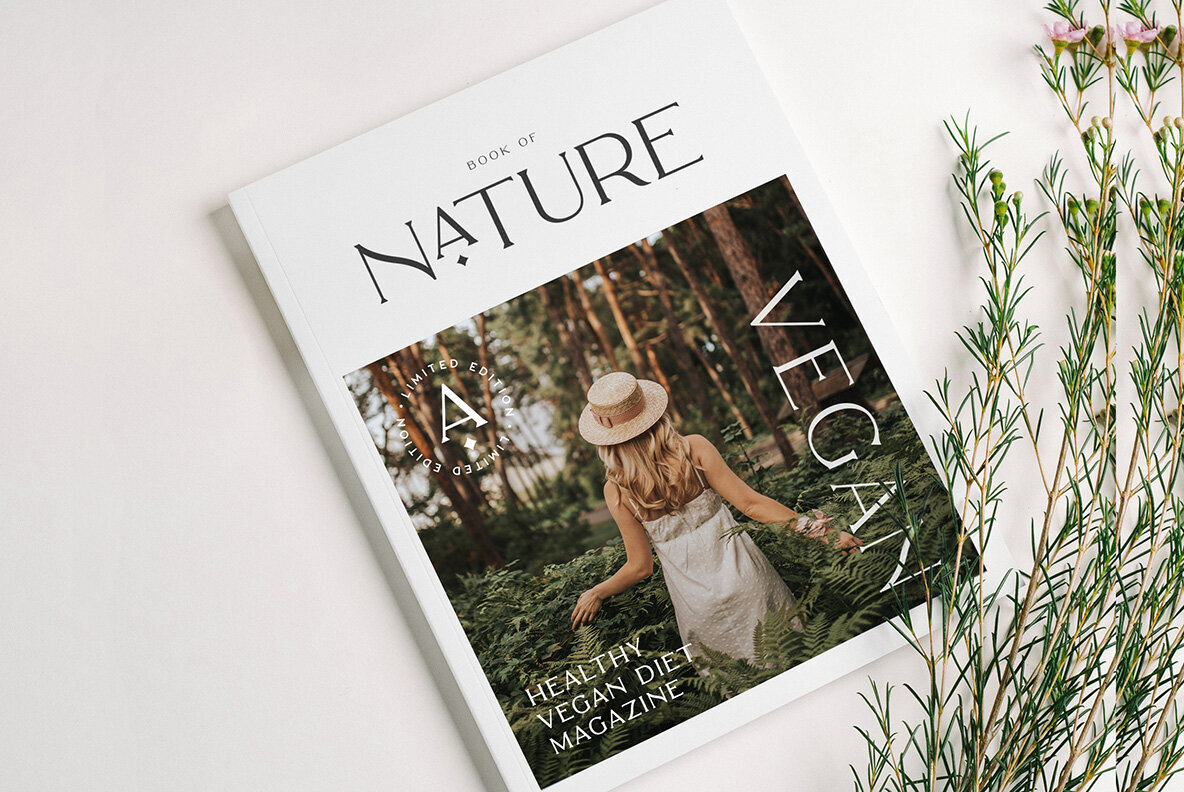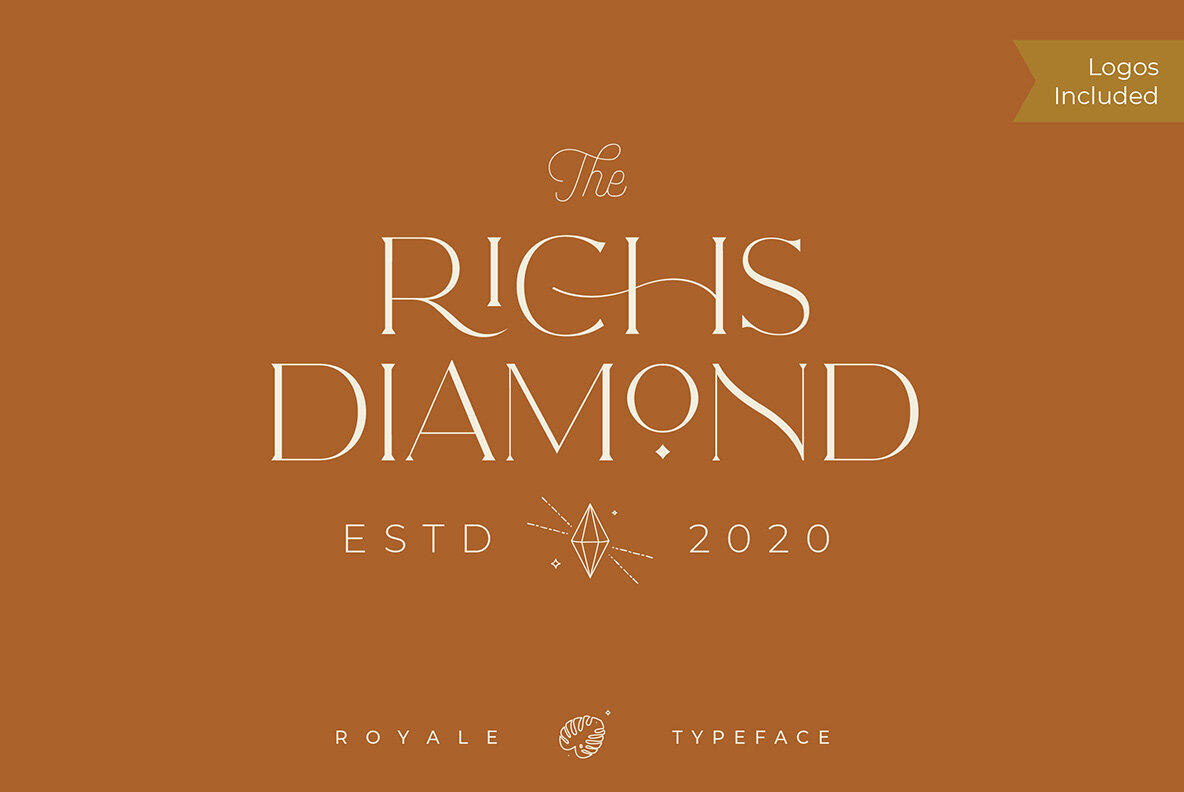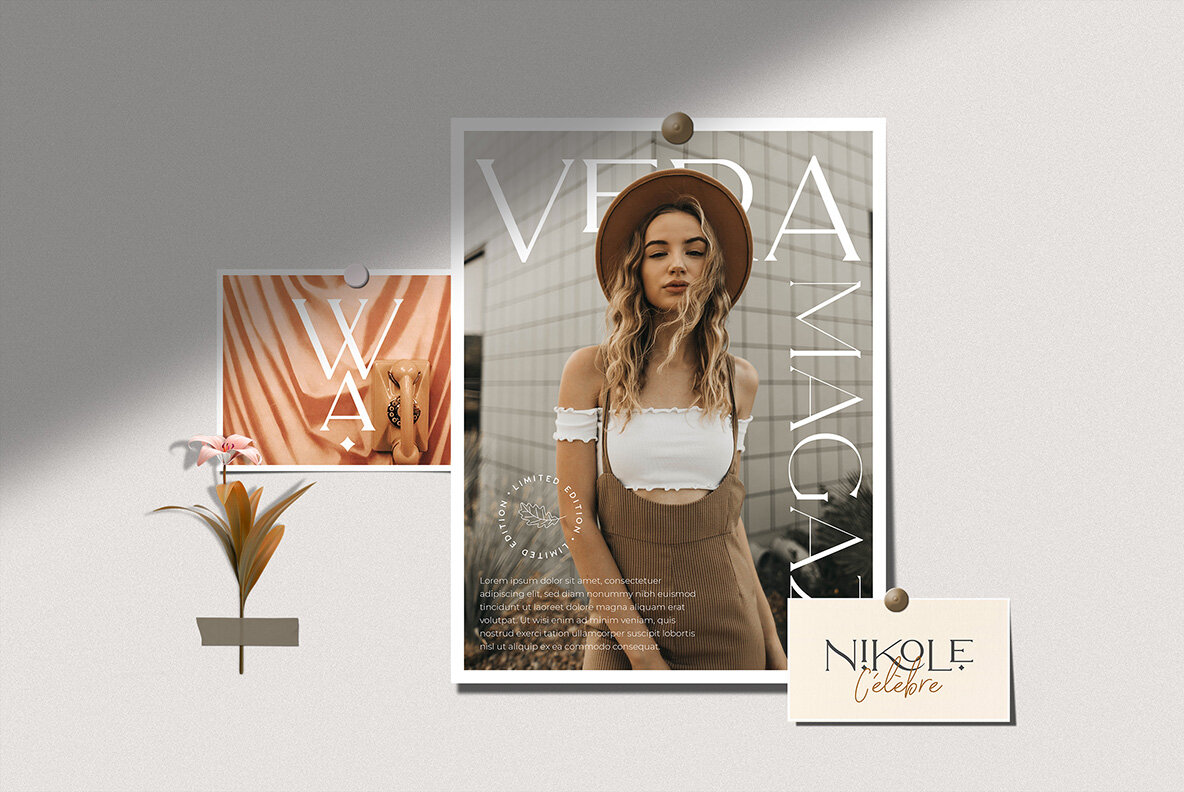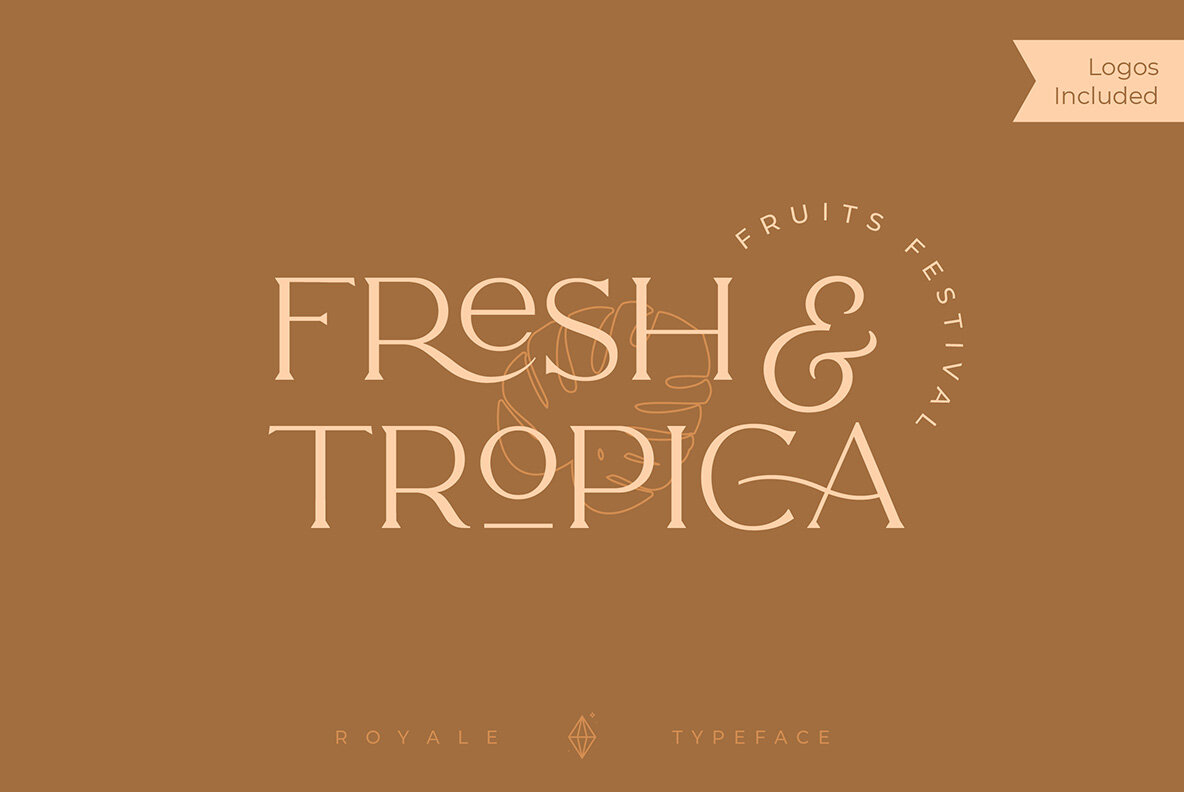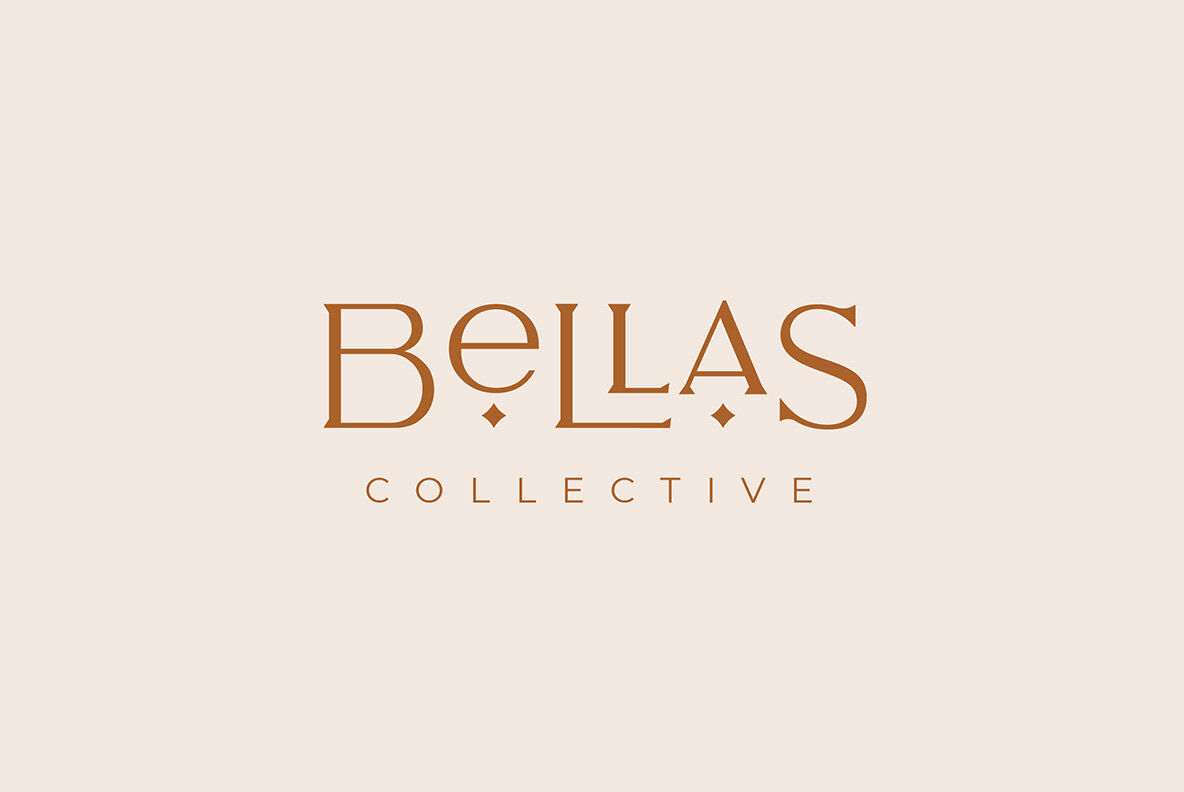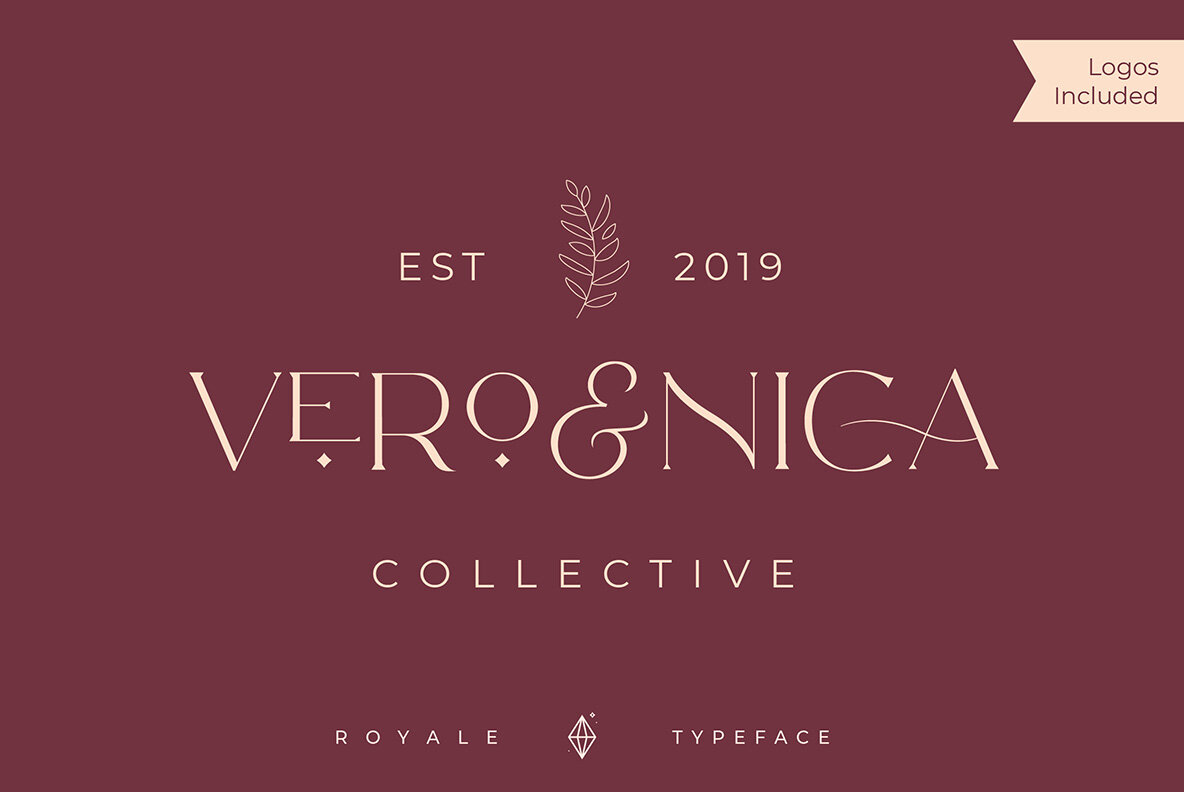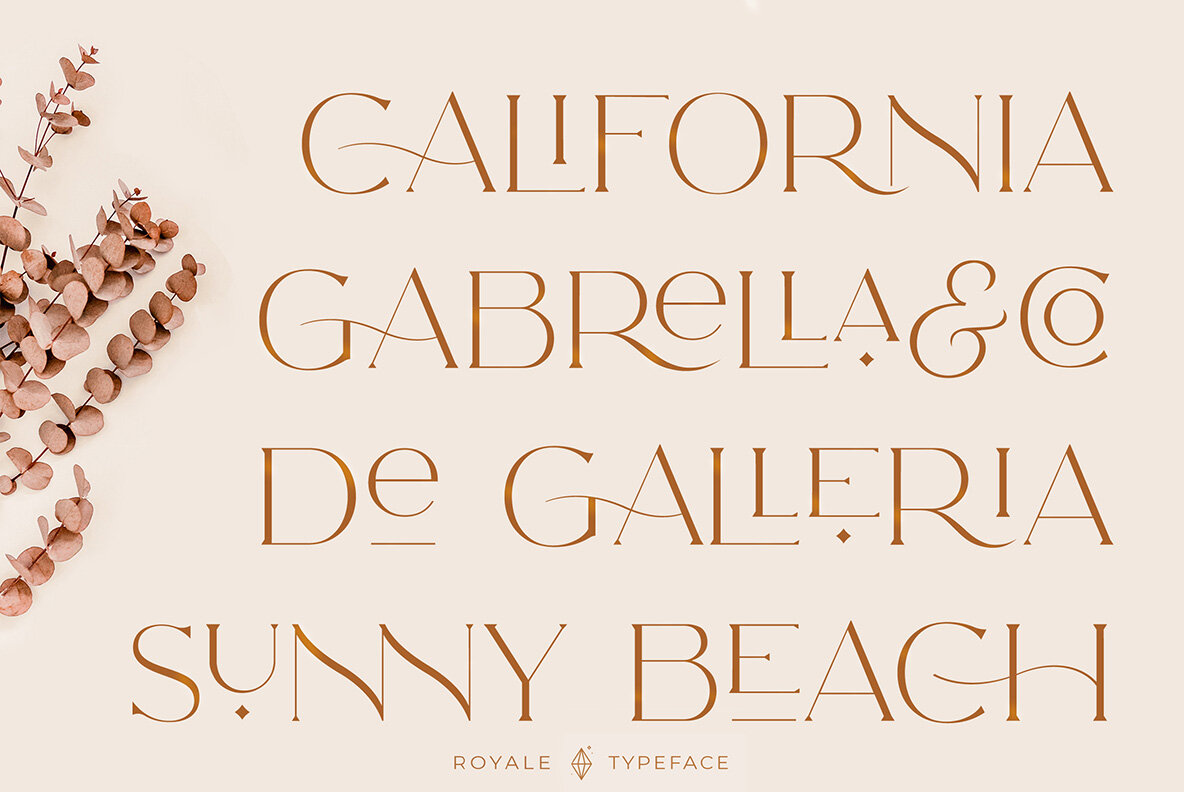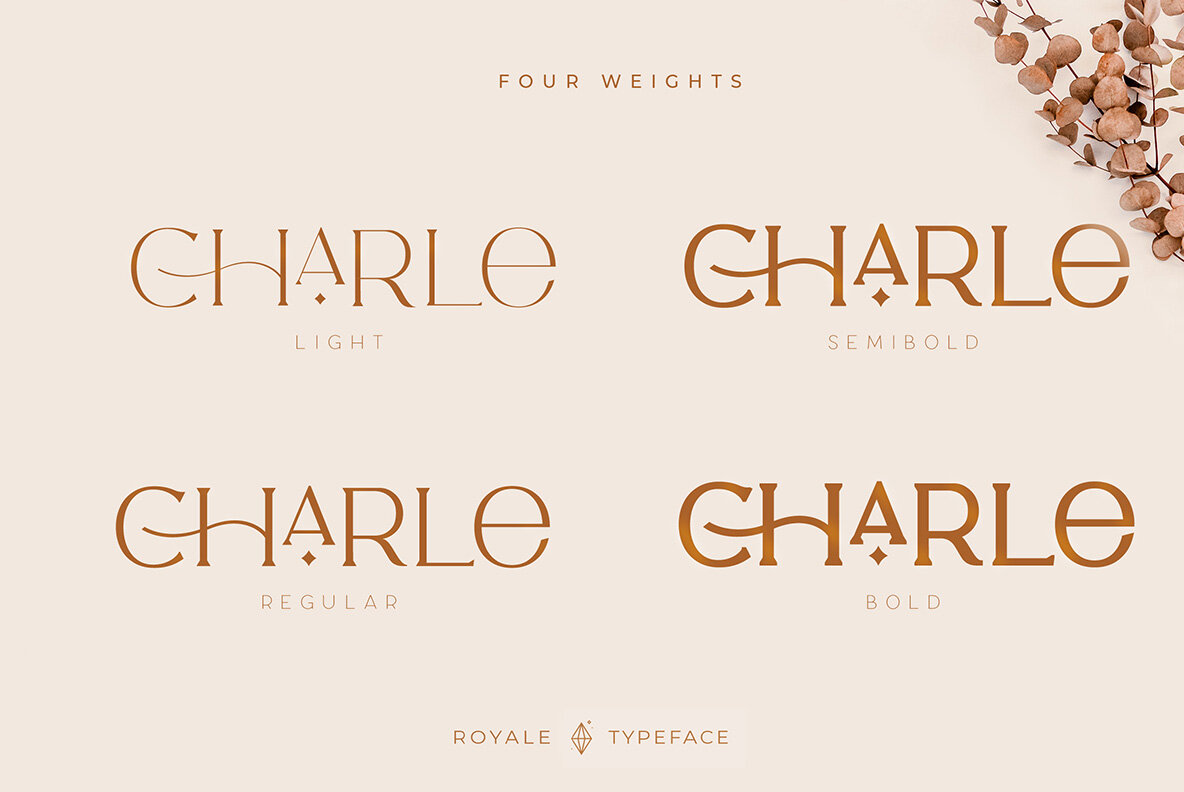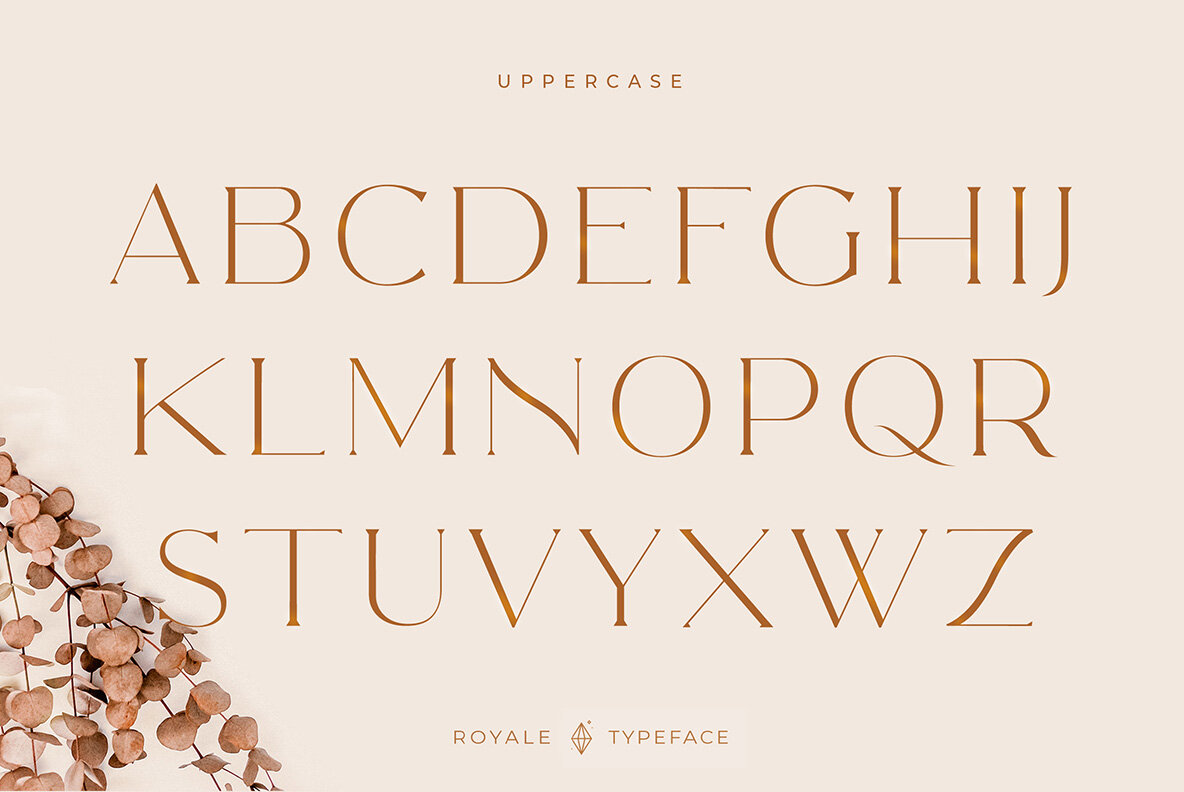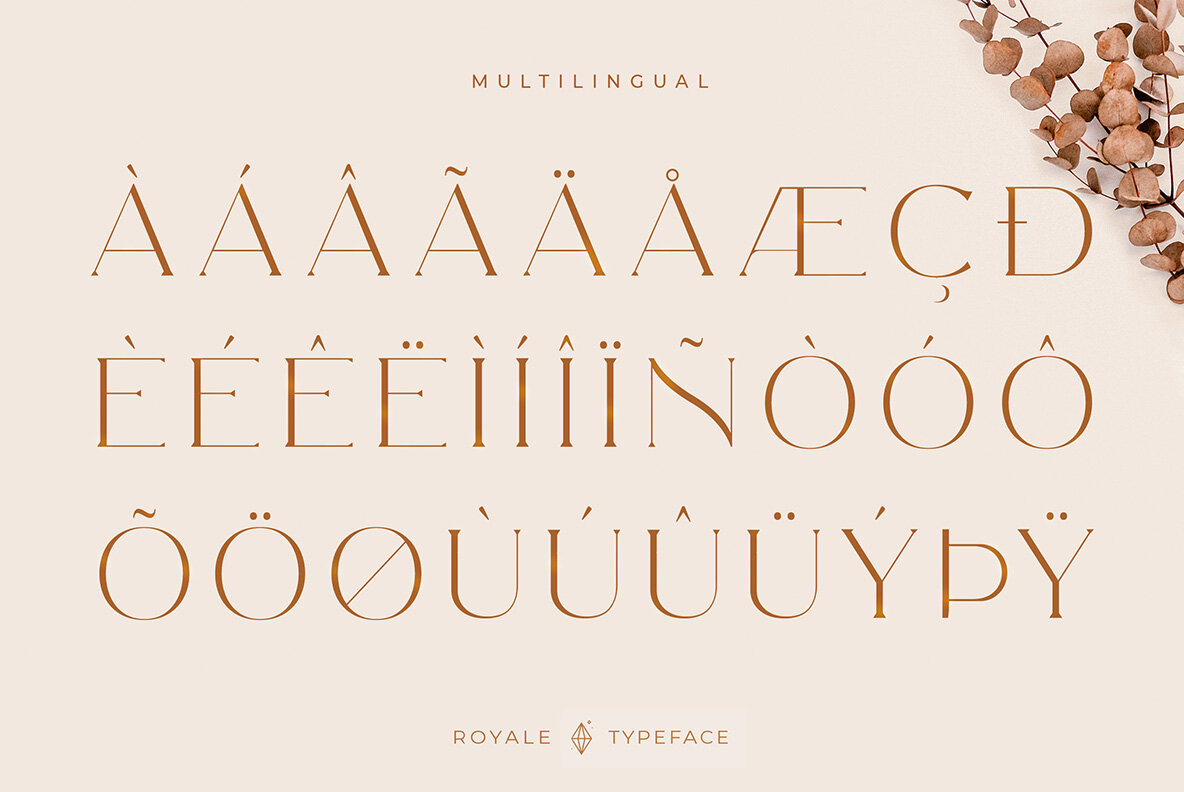
Royale Luxurious Font
The Royale Luxurious typeface offers a minimalist, modern aesthetic with elegant detailing. Featuring an array of alluring ligatures and special alternative glyphs, this font brings a distinctive flair to your design projects. Its versatility shines through, adapting seamlessly to both large and small sizes without compromising its visual appeal. With multilingual support, Royale Luxurious accommodates a wide range of language needs. Perfectly suited for branding, logo designs, clothing branding, product packaging, or magazine headers, Royale Luxurious elevates your creativity. It's equally impactful as a stylish text overlay on any background image, adding a touch of sophistication.Royale Luxurious: A Versatile Modern Font